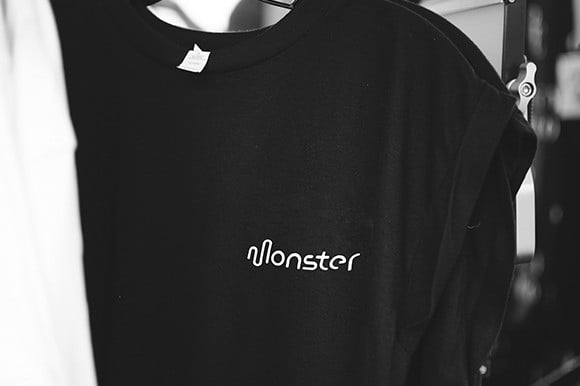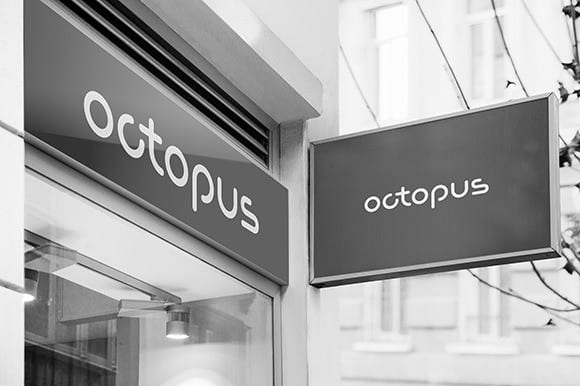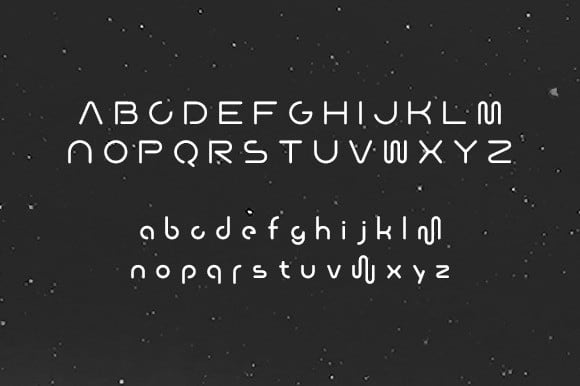
Steronite Sans Serif Font is a modern sans serif family that blends old and new generation sans serif fonts in the same pot. This typeface is a conceptual and simple lettered sans serif font. It has wide usages with its slight narrow structure, sharp and clean lines, humanist touches. It can easily be matched to an incredibly large set of projects, so add it to your creative ideas and notice how it makes them stand out!